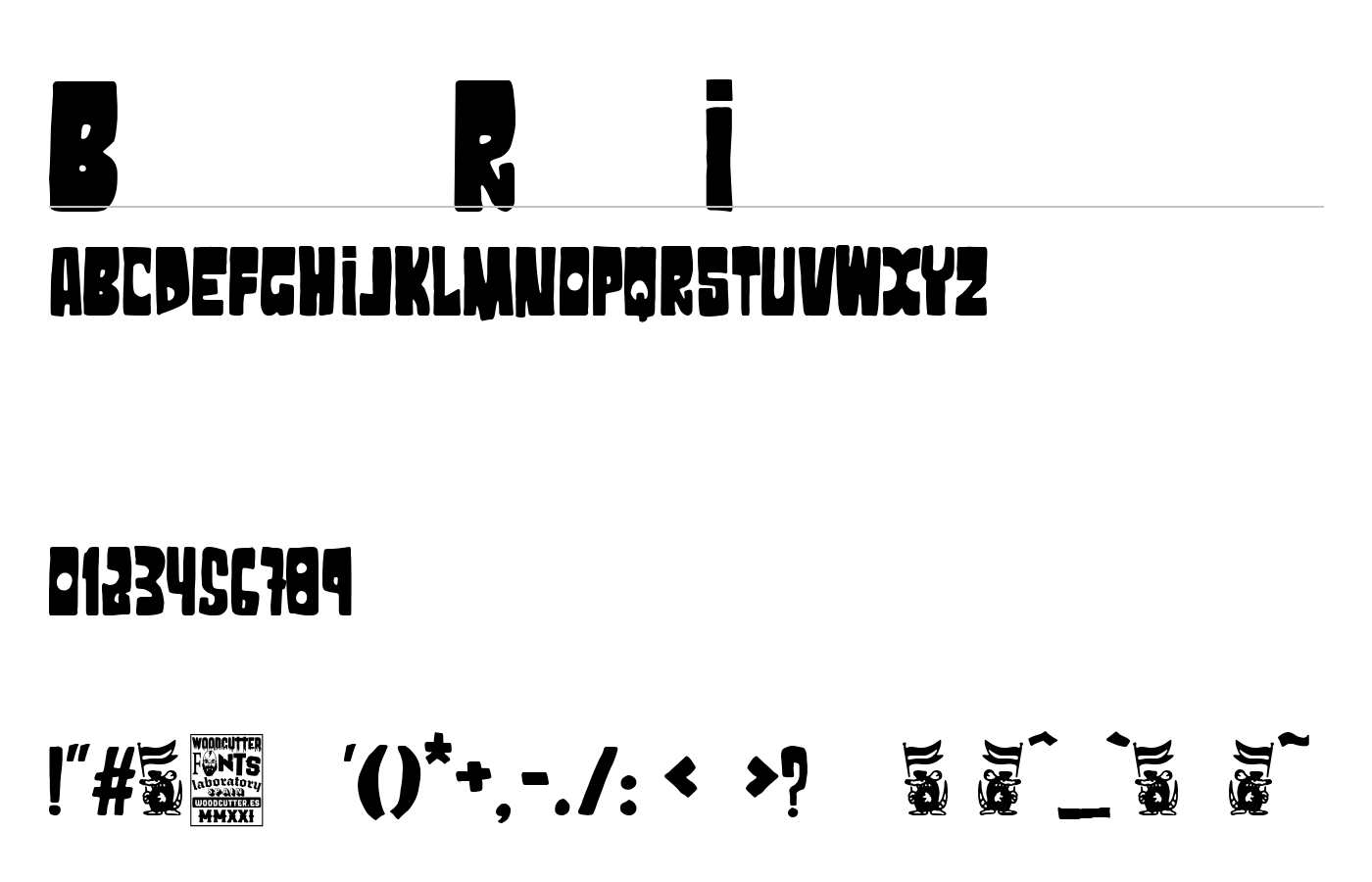
Black Rat Institute is a bold, condensed display font with a playful, slightly rough texture that gives it a unique and energetic character. Its heavy weight, quirky shapes, and compact style make it perfect for eye-catching headlines, posters, and branding that demand a strong, distinctive personality. This font works well for creative projects needing a fun, dynamic vibe without losing readability.
Black Rat Institute Font
About Black Rat Institute Font